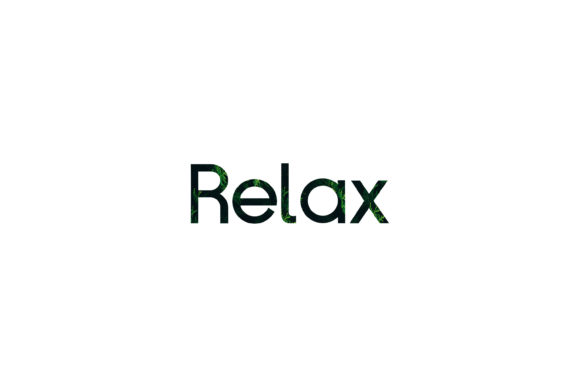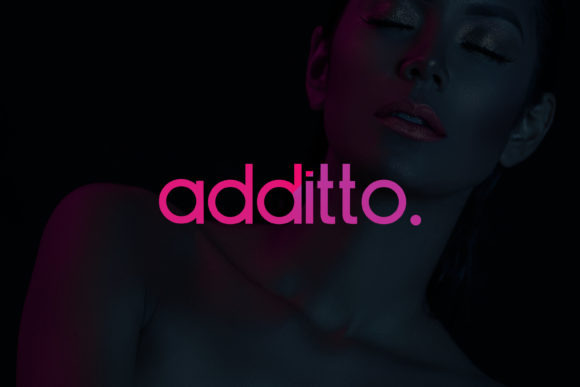
Discover the Elegance of Additto Font: A Modern Sans Serif for Your Craft Designs
In the world of typography, fonts play a crucial role in conveying messages and setting the tone for designs. For crafters and designers looking for a modern touch, the Additto font stands out as a versatile and elegant choice. This article explores the features and benefits of the Additto font, and how it can elevate your craft designs to the next level.
What is Additto Font?
Additto is a modern sans serif font, characterized by its clean lines and straightforward appearance. Sans serif fonts, known for lacking the small lines or flourishes at the ends of letters, offer a contemporary look that suits a wide range of design applications. Additto, in particular, is designed to be simple and easy to use, making it accessible for both beginners and seasoned designers.
Key Features of Additto Font
• Modern Aesthetic: The font’s modern sans serif design gives it a fresh and current look, perfect for projects that require a clean and minimalist approach.
• Ease of Use: Additto is crafted to be user-friendly, ensuring that it can be easily integrated into various design projects without requiring extensive typography knowledge.
• Versatility: One of the standout features of Additto is its versatility. It can be used in a multitude of craft designs, from digital graphics and branding to print materials and handmade crafts.
• Legibility: The clear and legible design of Additto makes it suitable for both headings and body text, providing flexibility in design choices.
Benefits of Using Additto Font in Your Designs
The addition of Additto to your typography arsenal can bring numerous benefits to your designs. Here are a few:
• Enhanced Visual Appeal: The modern look of Additto can instantly elevate the visual appeal of your craft designs, making them more engaging and professional.
• Consistency Across Platforms: Given its clear and simple design, Additto ensures consistency across different platforms and mediums, which is crucial for branding and digital presence.
• Easy Pairing with Other Fonts: Additto’s neutral appearance makes it easy to pair with other fonts, allowing designers to create dynamic and visually appealing typography combinations.
• Time-Saving: The ease of use and versatility of Additto can significantly save design time, enabling crafters and designers to focus on other creative aspects of their projects.
How to Use Additto Font in Your Craft Designs
Integrating Additto into your design workflow is straightforward. Here are some tips on how to make the most out of this versatile font:
• Branding and Logos: Use Additto for creating modern and clean logos or as part of your brand’s typography to convey a sleek and professional image.
• Digital Graphics: Additto is perfect for social media graphics, blog posts, and digital marketing materials where a clear and contemporary look is desired.
• Print Materials: From business cards to posters and flyers, Additto can add a modern touch to your print designs.
• Crafting and DIY Projects: For crafters, Additto can be used in handmade cards, journaling, and other DIY projects to add a personalized and stylish touch.
Additto font offers a blend of modernity, simplicity, and versatility that can significantly enhance your craft designs. Whether you’re a professional designer or a hobbyist crafter, Additto provides the tools to create visually appealing and professional-looking projects. By incorporating Additto into your design repertoire, you can explore new creative possibilities and take your designs to new heights.